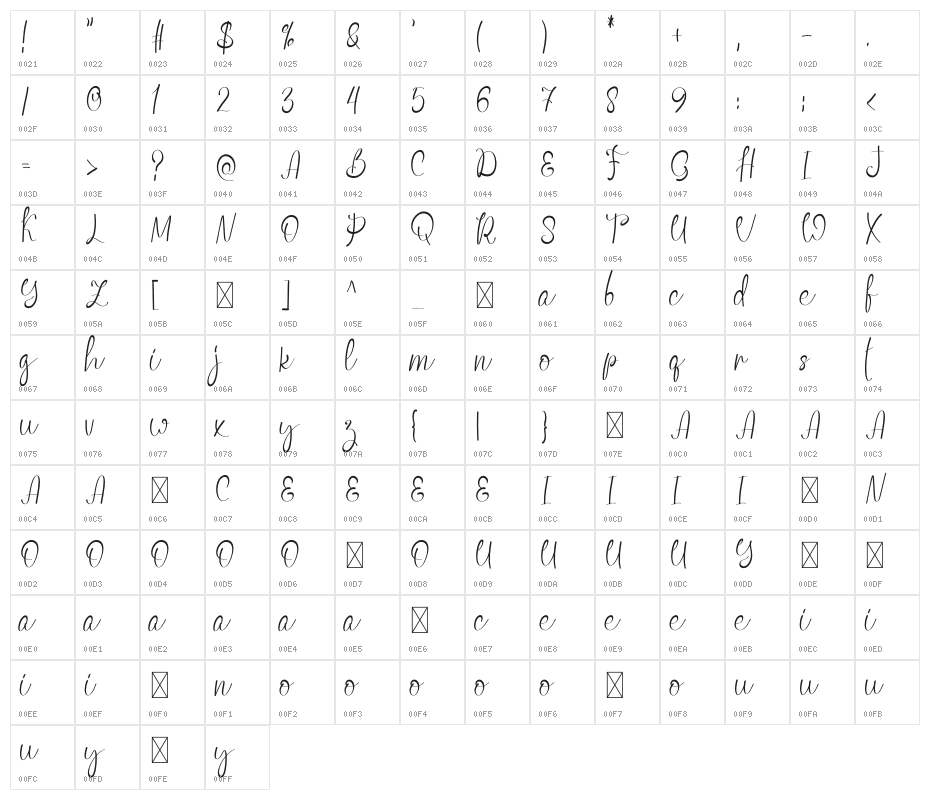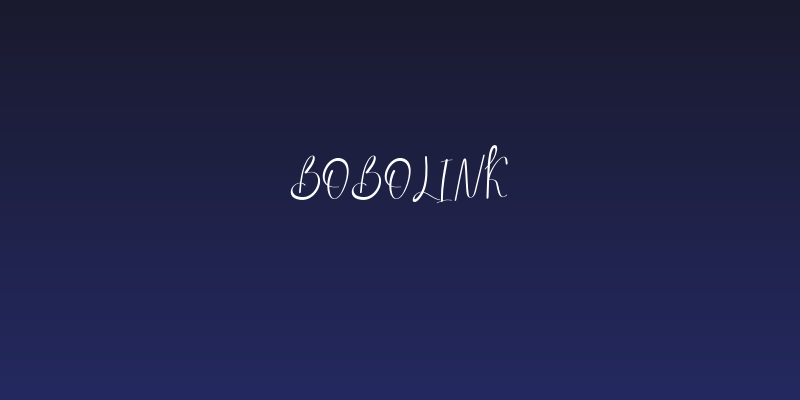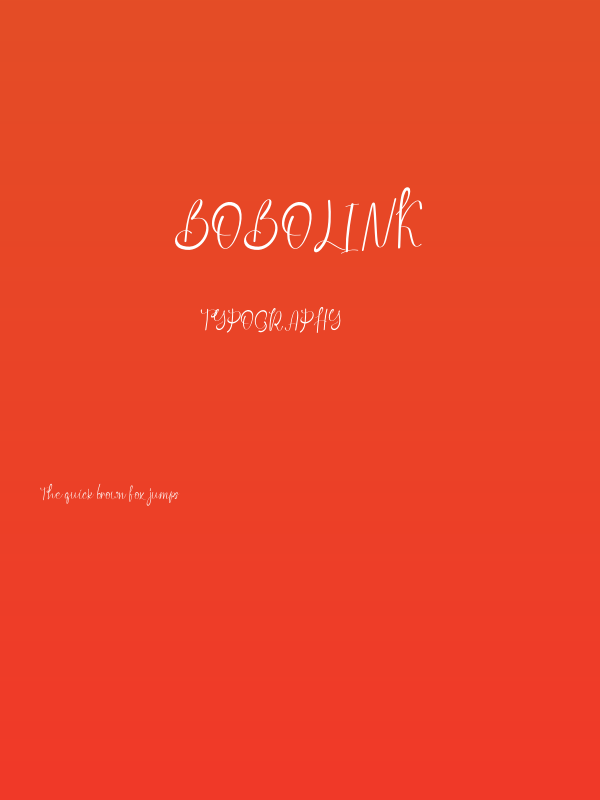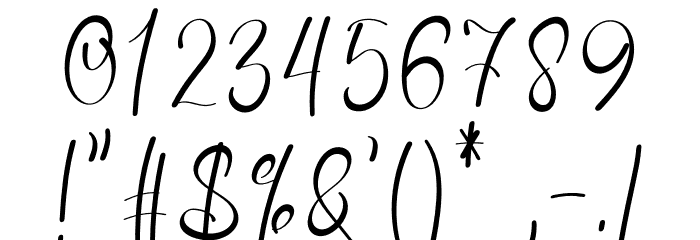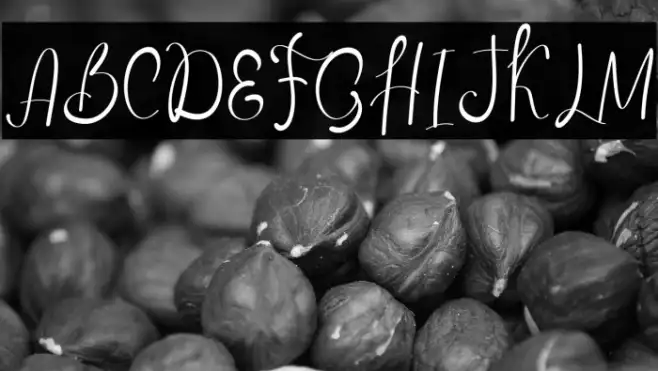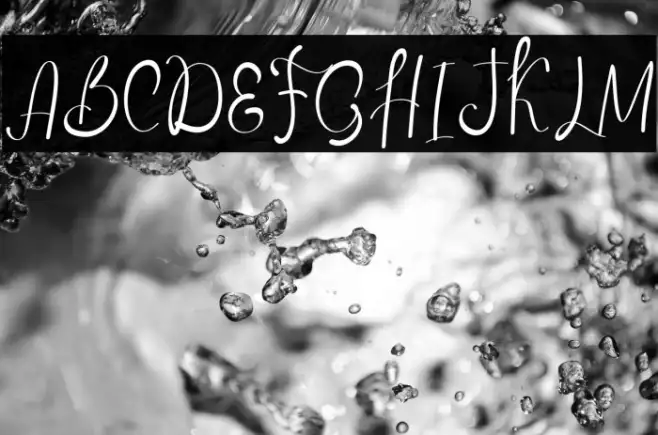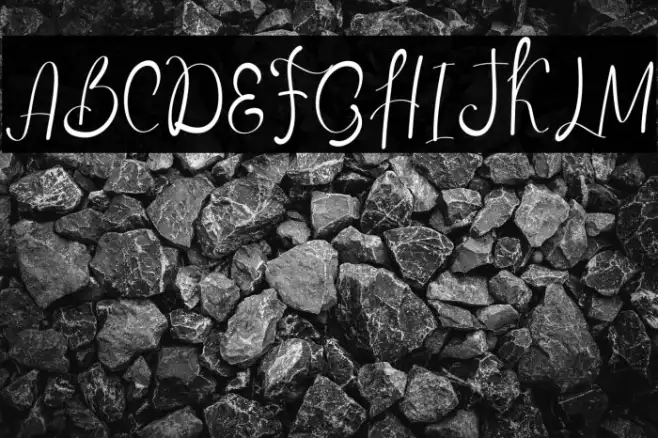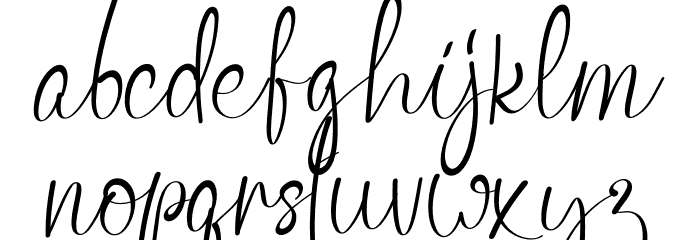
Bobolink Font
Bobolink Description
This font features a lively and flowing script style, characterized by its elegant curves and loops. The uppercase letters are tall and slender, with a graceful, sweeping motion that adds a sense of movement and dynamism. The lowercase letters maintain a consistent flow, with smooth connections between characters, enhancing readability while retaining a handwritten feel. Numbers are distinct and well-formed, complementing the overall aesthetic. The special characters are crafted with the same attention to detail, ensuring a cohesive look across all glyphs. This font exudes a sense of sophistication and creativity, making it suitable for a variety of design applications.
| Use Case | Logos, Invitations, Artistic Designs |
| Proposed Projects | Ideal for wedding invitations, greeting cards, branding projects, and artistic designs. |